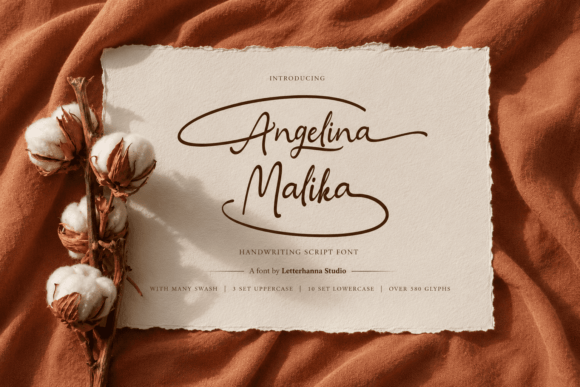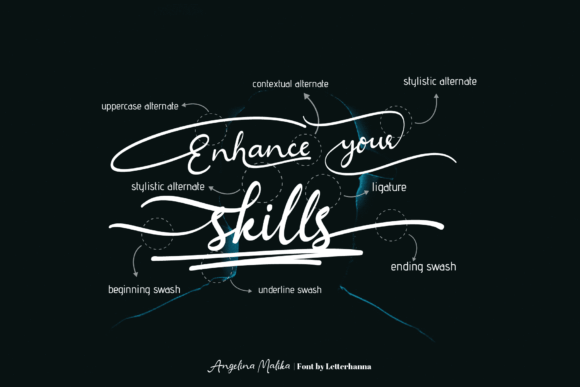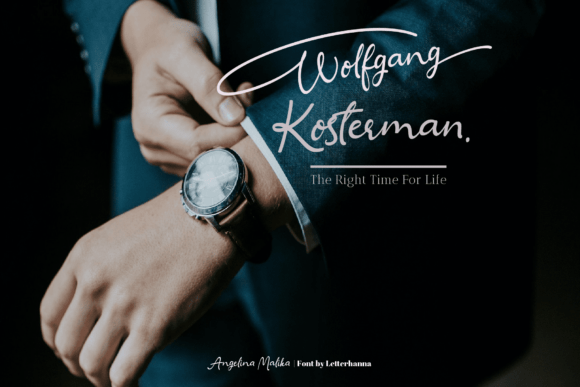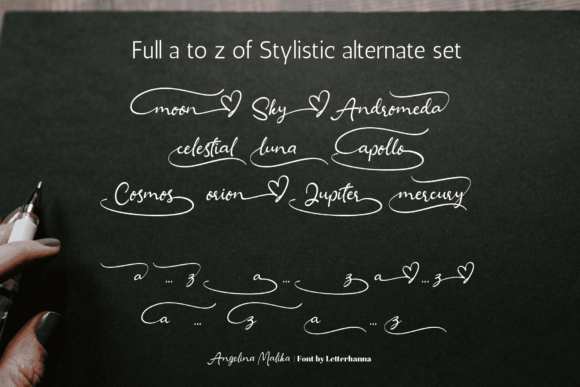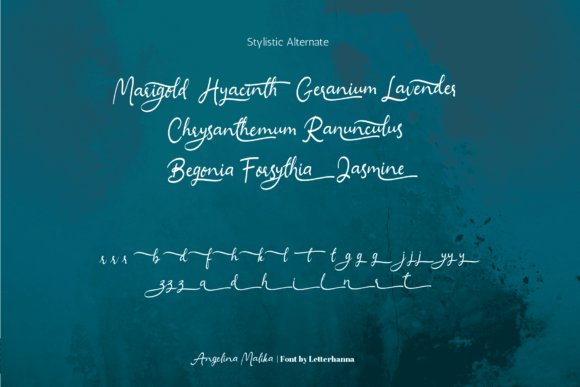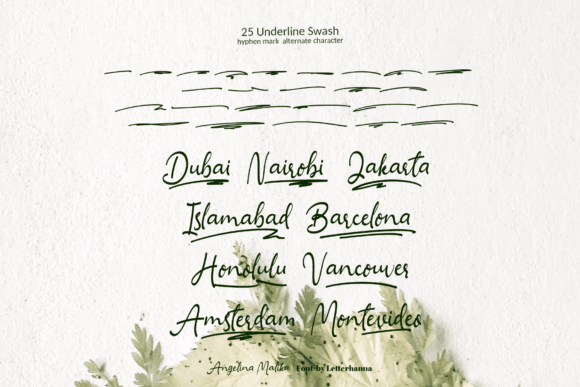
Introduction to Angelina Malika Font
Infuse your creative canvas with pure elegance, poetic rhythm, and sweeping luxury using Angelina Malika, a magnificent calligraphic handwritten lettering font.
Set against minimal desktop layouts, lifestyle flat-lays, or soft textures, Angelina Malika functions as a top-tier design choice for elegant wedding stationery, premium cosmetics branding, boutique feminine logos, fine-art photography watermarks, and high-end editorial product packaging .
Key Features of Angelina Malika Font